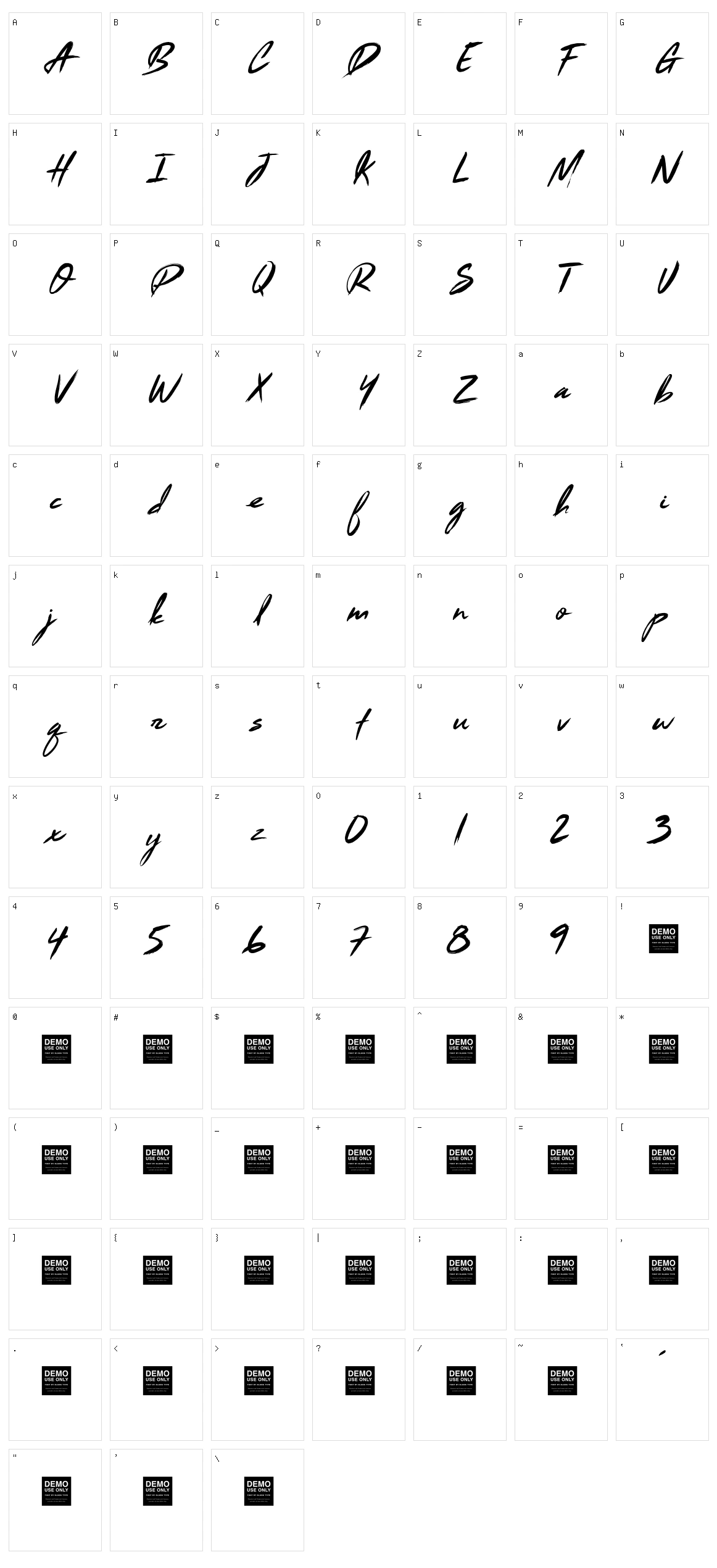
The free font Black Marble is carefully designed by BLKBK Fonts, showcasing a thoughtful balance of creativity and usability and falls under the Script font style. When you download the ZIP file, it contains only 62.32 KB of font files, making it lightweight and quick to download. Please review the license details below to understand permitted usage and distribution rights. If license information is not available, we recommend using this font for personal projects only or contacting the author directly for commercial usage permissions.